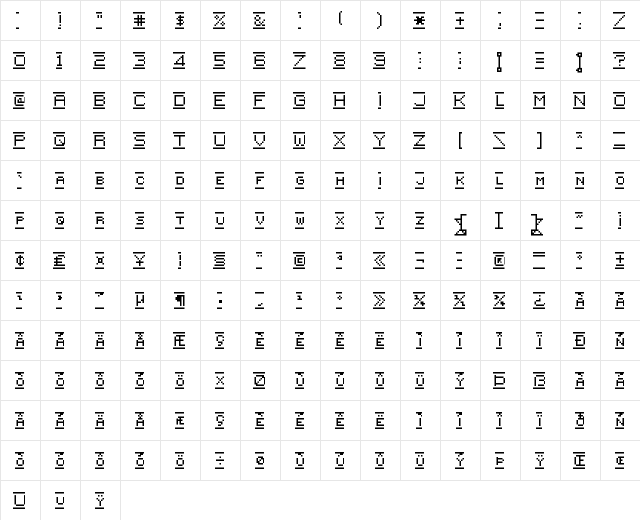
Complete {PixelFlag} Regular glyph index. Displaying only characters natively supported by {PixelFlag} Regular font.
{PixelFlag} is rooted in pixel-grid construction, making it a natural fit for game UI, retro computing aesthetics, and digital nostalgia projects.
Pro Tip: Use {PixelFlag} at sizes that align with its pixel grid for the sharpest rendering - scaling to non-integer multiples can introduce unwanted blur.